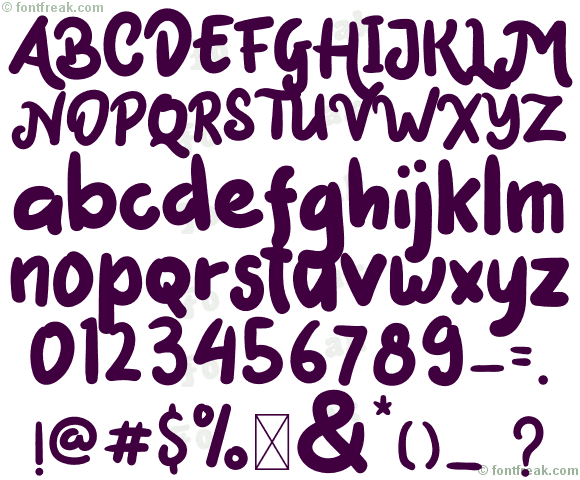
Mark Catynia
Introducing the Mark Catynia font by Eknoji Studio, a delightful display typeface that brings a touch of playfulness and charm to any design project. This font falls into the decorative category, characterized by its unique, rounded letterforms and whimsical style. The Mark Catynia font features a medium stroke weight with a slight contrast that lends it an approachable feel, making it perfect for a variety of applications. The generous spacing between letters ensures readability while maintaining a lively appearance, which is ideal for eye-catching designs.
Mark Catynia shines in multiple use cases, making it a versatile choice for graphic designers and content creators alike. This font is particularly well-suited for wedding invitations, where its friendly yet elegant style can create a warm atmosphere. It also works beautifully for restaurant menus, adding a touch of personality that can enhance the dining experience. For small business owners looking to create engaging marketing materials, Mark Catynia can be utilized in flyers and brochures, effectively capturing the attention of potential customers. Additionally, it is a fantastic choice for children’s book covers, where its playful nature can resonate with young readers.
Targeted towards graphic designers, small business owners, and content creators, Mark Catynia offers a unique blend of creativity and functionality. Its delightful design can elevate any project, making it a valuable addition to any designer's toolkit.